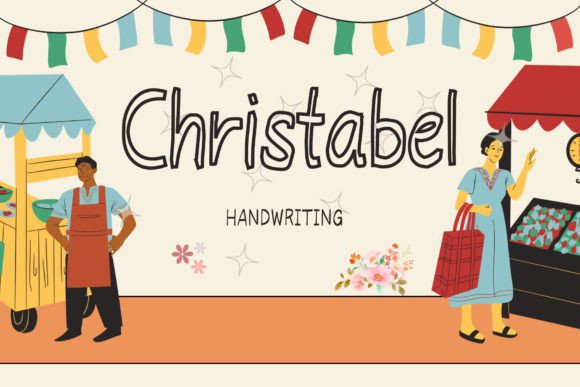
Step into a world of enchanting creativity with Christable Font, the playful sans-serif that captivates hearts and ignites imaginations. Designed by the talented surachet2548, this charming script exudes a delightful handwritten quality, perfect for adding a touch of whimsy and personality to your designs.
With its graceful curves and expressive strokes, Christable Font dances across the page like a joyful melody. Its unique character adds a touch of magic to your invitations, cards, logos, and any creative project you can dream up. Whether you're a seasoned designer or just starting out, Christable Font is the perfect companion to bring your artistic vision to life.
Transport yourself to a realm of boundless creativity, where your words and designs take on a new level of charm and elegance. From heartfelt messages to playful slogans, Christable Font breathes life into your creations, making them stand out from the ordinary. Unleash your inner artist and let Christable Font guide you on a journey of self-expression and visual delight.
So, dive into the world of Christable Font and let your imagination soar. Discover the endless possibilities that await you as you embrace the playful spirit of this captivating script. With Christable Font as your creative partner, every project becomes a masterpiece, every design a reflection of your unique style. Embrace the joy of handwritten charm and let Christable Font transform your creative endeavors into works of art.